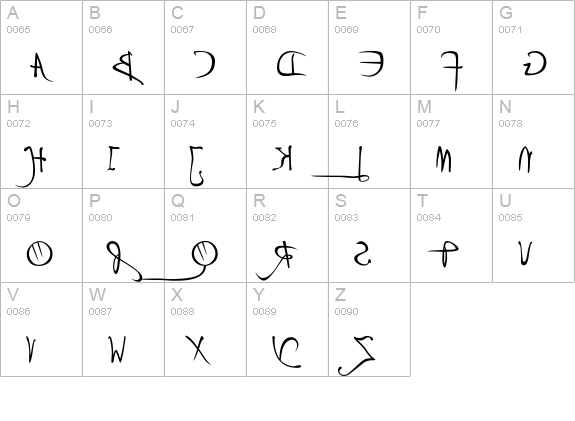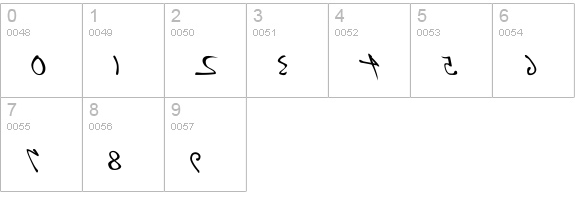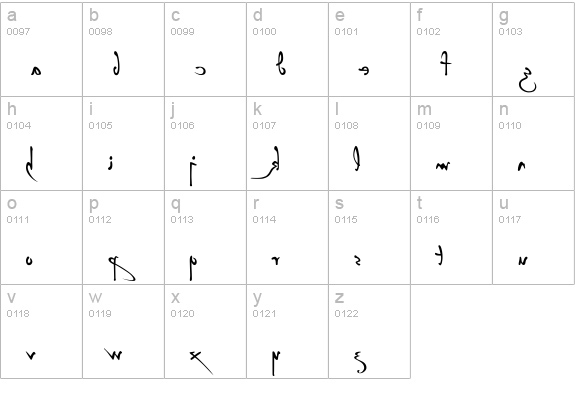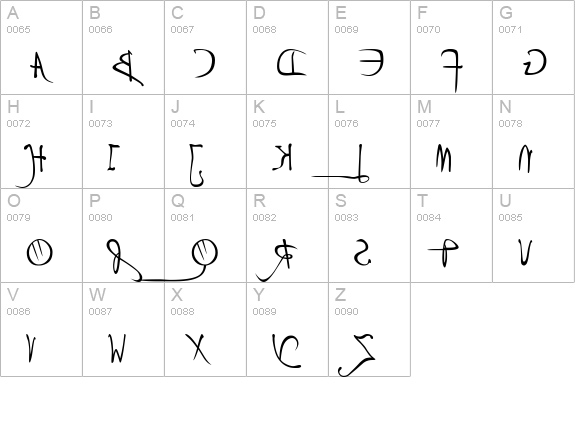
P22 Da Vinci Backwards Font Details
The P22 Da Vinci Backwards font is a mesmerizing typographic creation that pays homage to the genius of Leonardo da Vinci. Inspired by the mirror writing technique often employed by the great artist, this font allows you to effortlessly recreate the enigmatic and intriguing style that defined his work. With its elegant and fluid strokes, P22 Da Vinci Backwards captures the essence of da Vinci's unique approach to writing. Each letter is meticulously crafted to reflect the artist's mastery of both science and art, making it the perfect choice for projects that require a touch of intellectual sophistication. Whether you're designing a book cover, creating a logo, or simply adding a touch of creativity to your personal projects, P22 Da Vinci Backwards is sure to captivate and inspire. Its distinctive style effortlessly blends the old with the new, making it a versatile choice for both traditional and modern designs. But what makes this font truly exceptional is that it is freely available to download at FontsMarket.com. Yes, you read that right - you can enjoy the beauty and elegance of P22 Da Vinci Backwards without having to spend a penny. This font is a gift to designers, artists, and enthusiasts who appreciate the timeless brilliance of Leonardo da Vinci's work. So, don't miss out on the opportunity to add a touch of da Vinci's genius to your projects. Download P22 Da Vinci Backwards today from FontsMarket.com and embark on a journey of artistic exploration. Unleash your creativity and let the spirit of Leonardo da Vinci guide you towards new heights of design excellence.